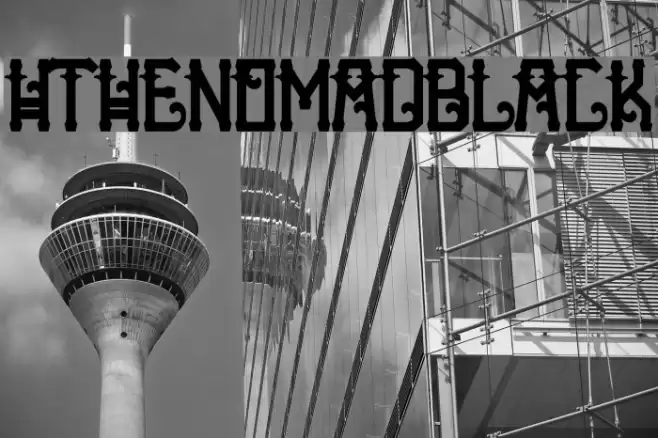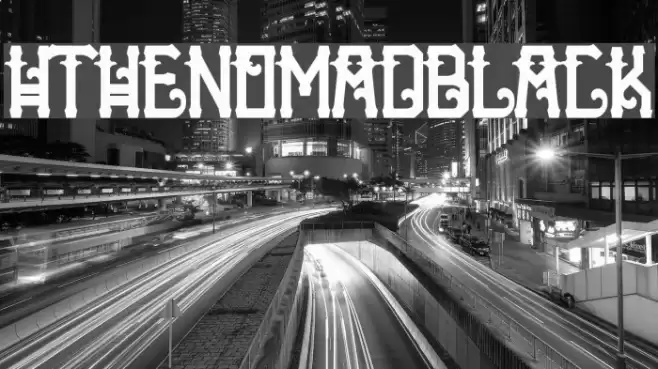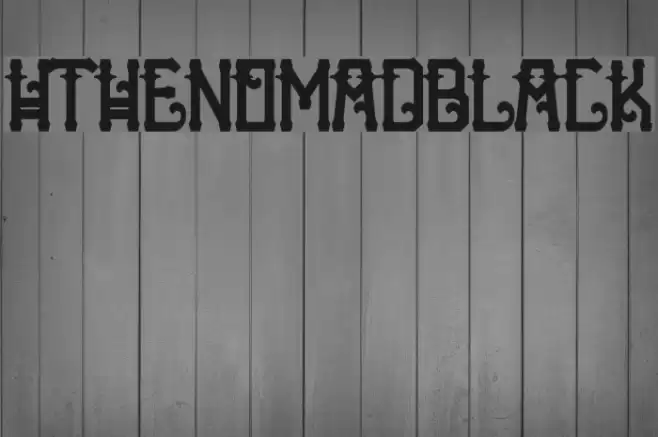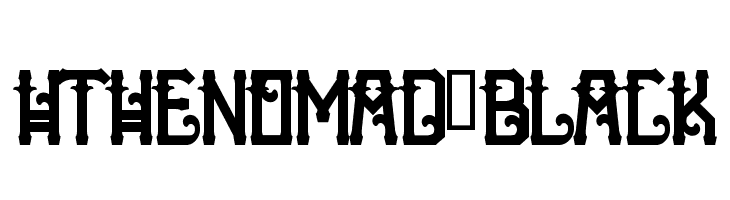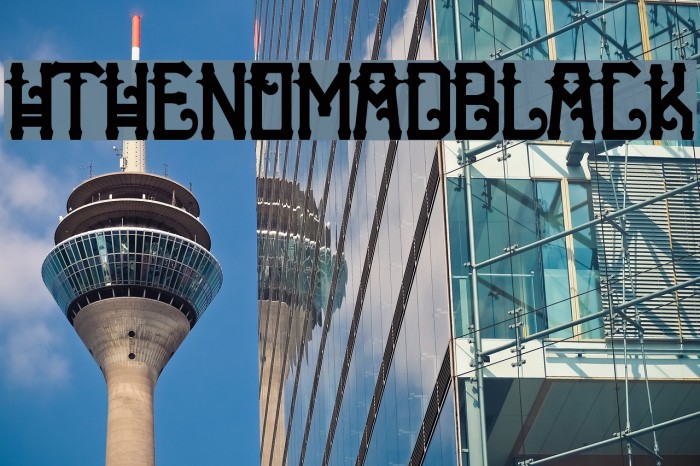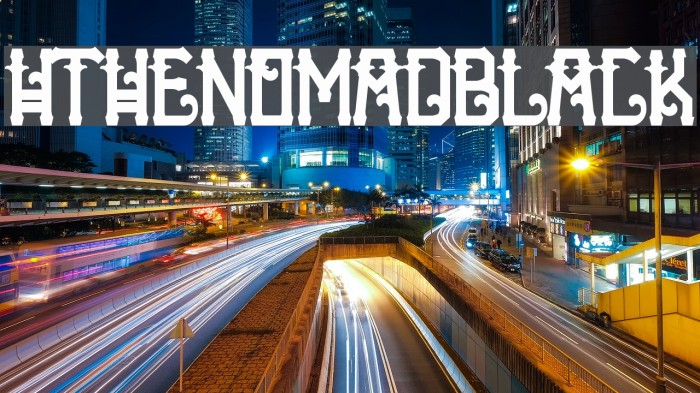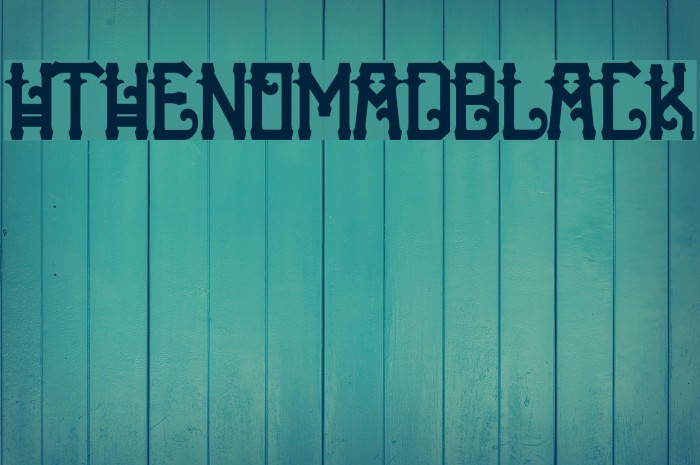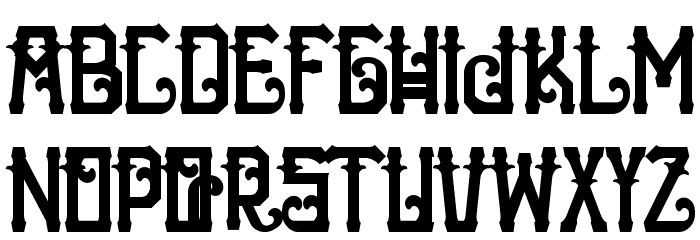
HTheNomad-Black Font
HTheNomad-Black Description
This font features a bold, decorative style with intricate, swirling elements integrated into each character. The uppercase letters are particularly striking, with sharp angles and unique embellishments that give them a distinct, ornamental appearance. The overall design is reminiscent of gothic or medieval influences, making it ideal for projects that require a dramatic and eye-catching typeface. The font's strong presence and artistic flair make it suitable for use in headlines, posters, or any design that aims to capture attention and convey a sense of grandeur.
A bold, decorative font with gothic influences and intricate details from Uncategorized fonts.
- Proposed Projects: Ideal for use in posters, headlines, branding, and any design requiring a dramatic, eye-catching typeface.
- Use Case: Headlines, Posters, Branding